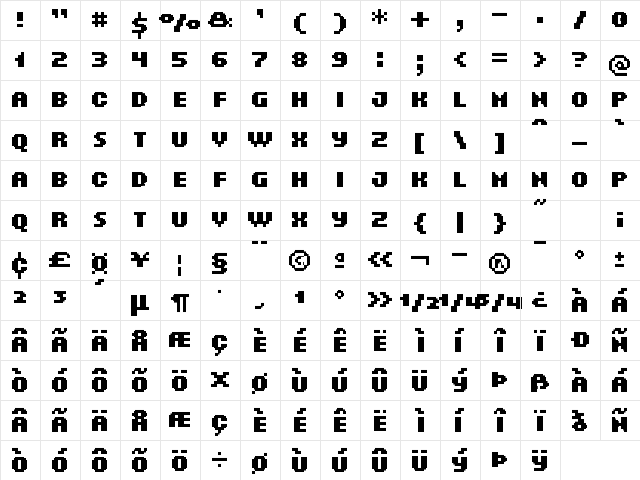
UF Orbital Menu Bold Regular
Design Context for UF Orbital Menu Bold Typeface
UF Orbital Menu Bold takes a measured approach to typography — its balanced proportions and neutral character make it a reliable workhorse for both digital and print work. The heavy weight commands attention and anchors typographic hierarchies.